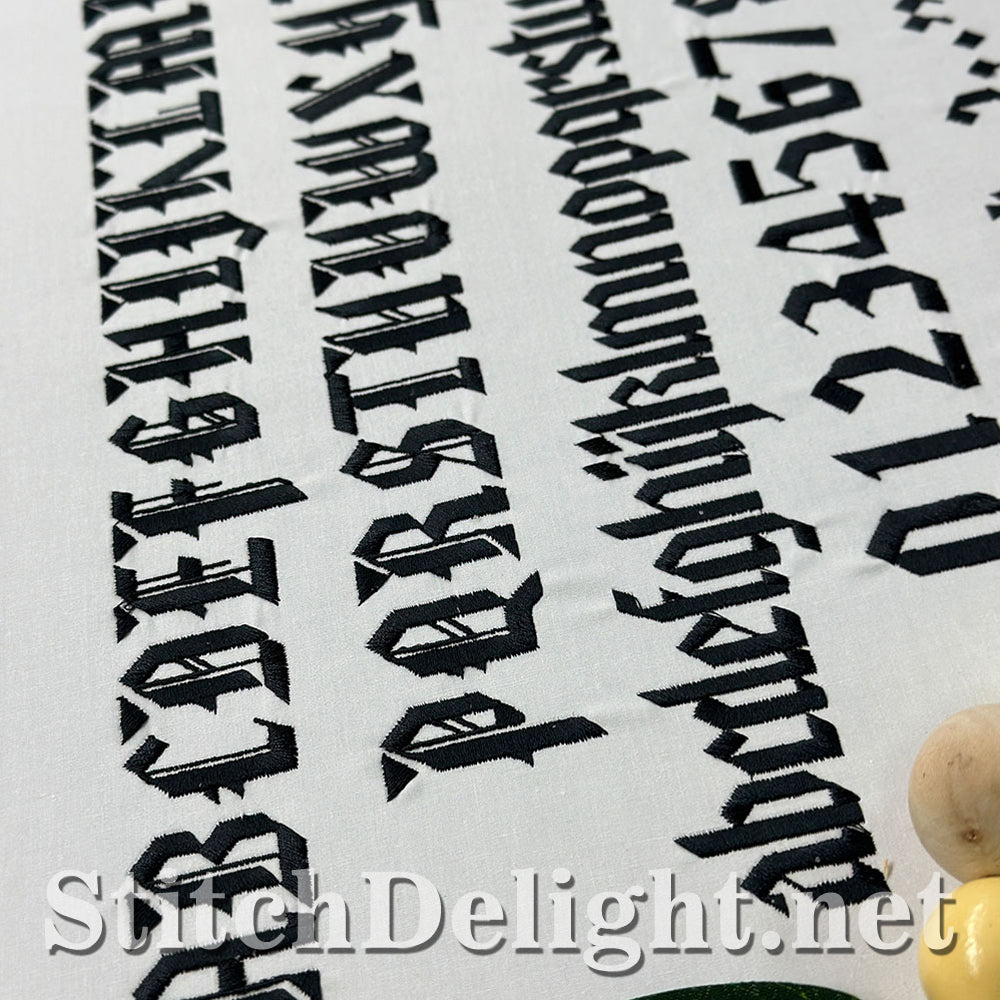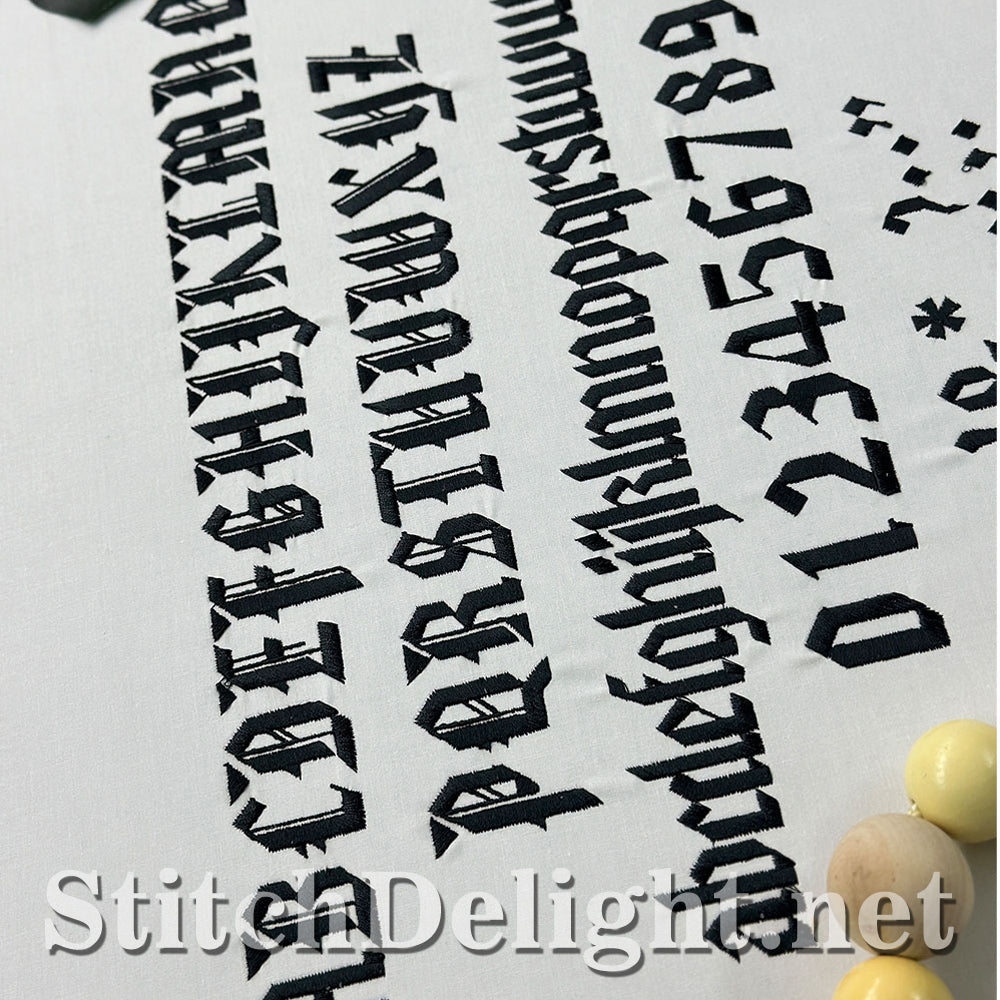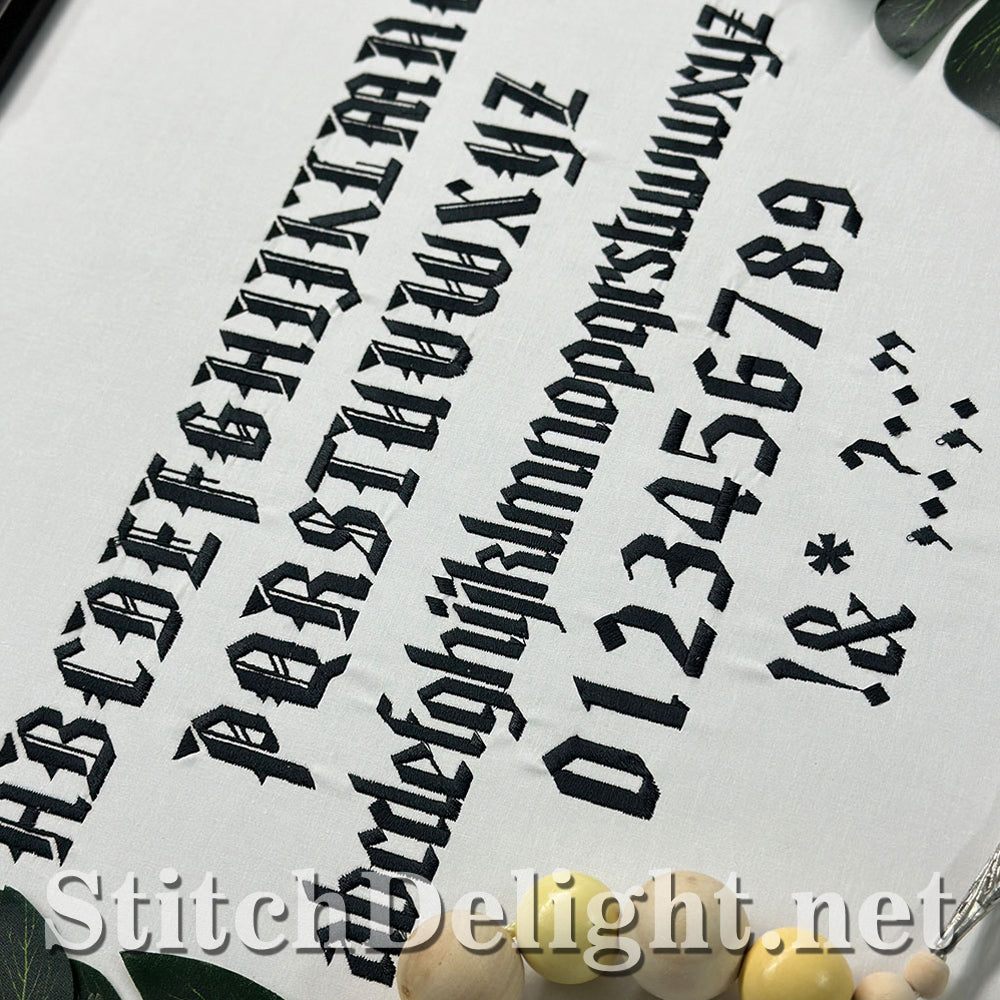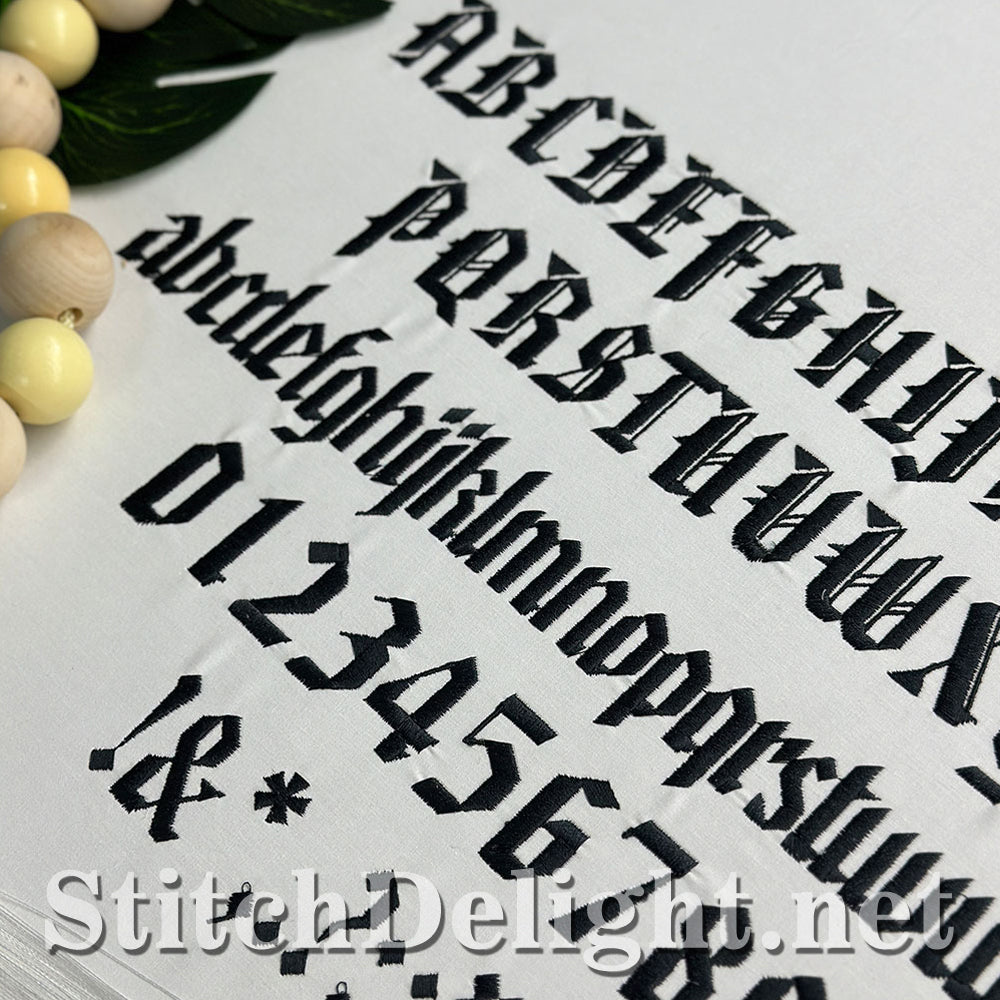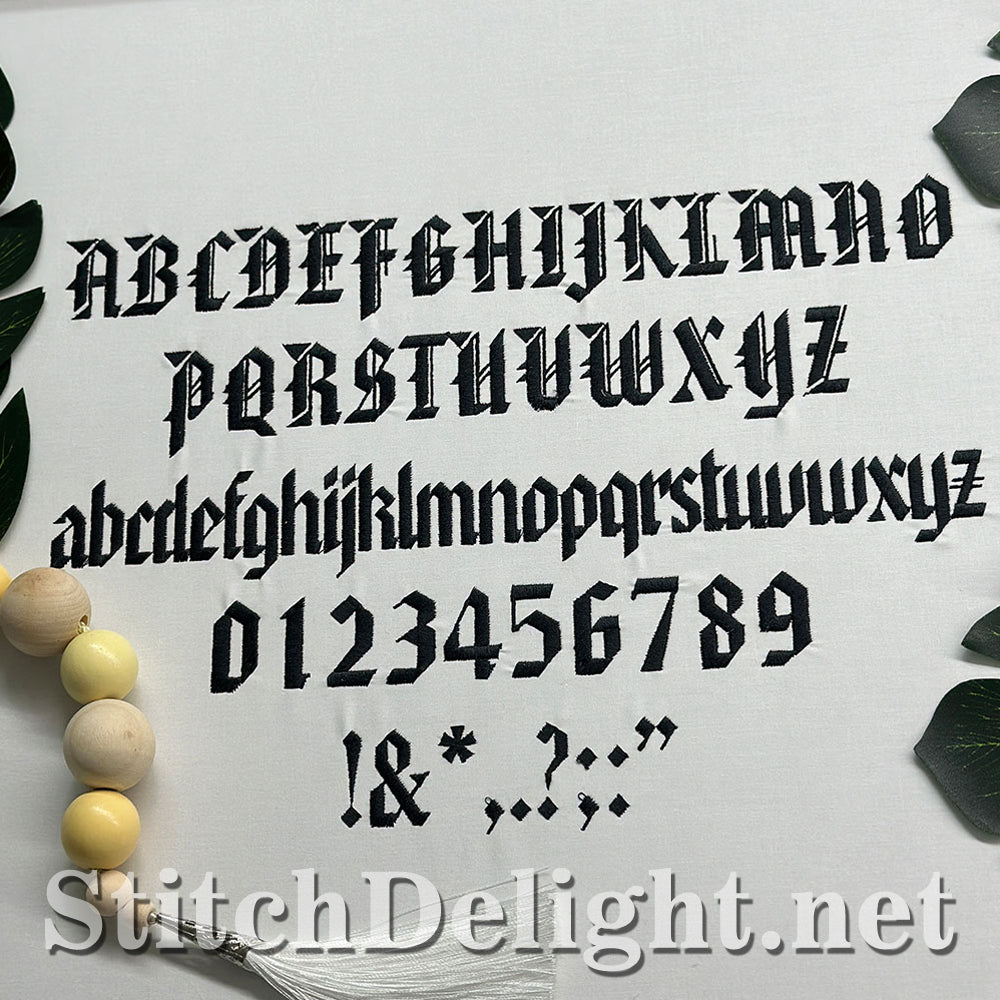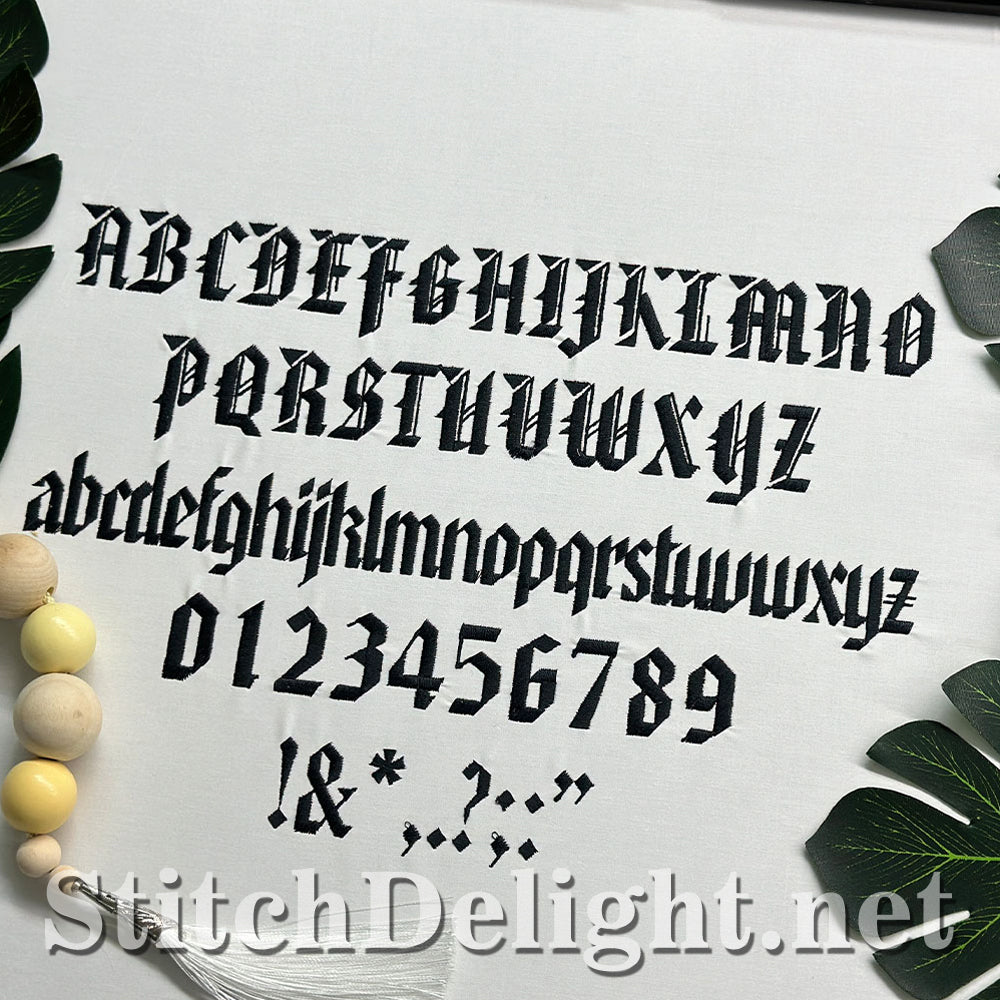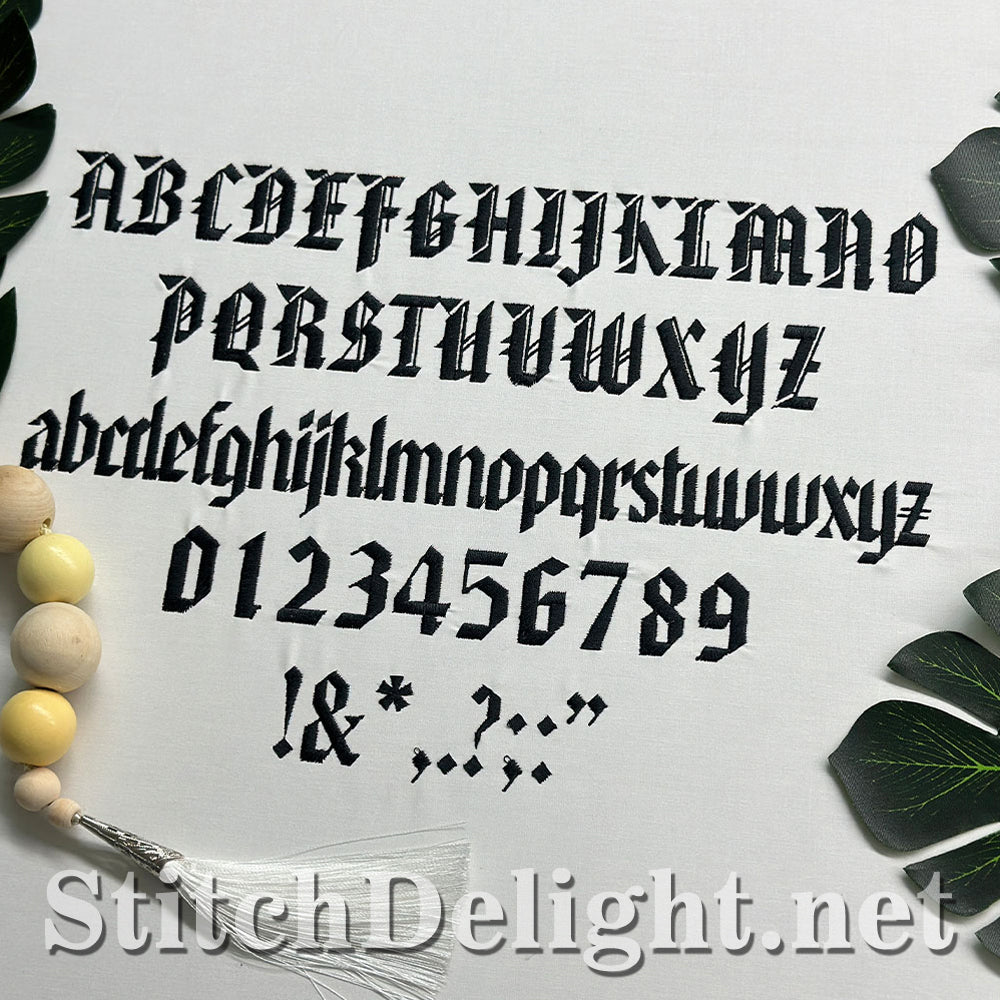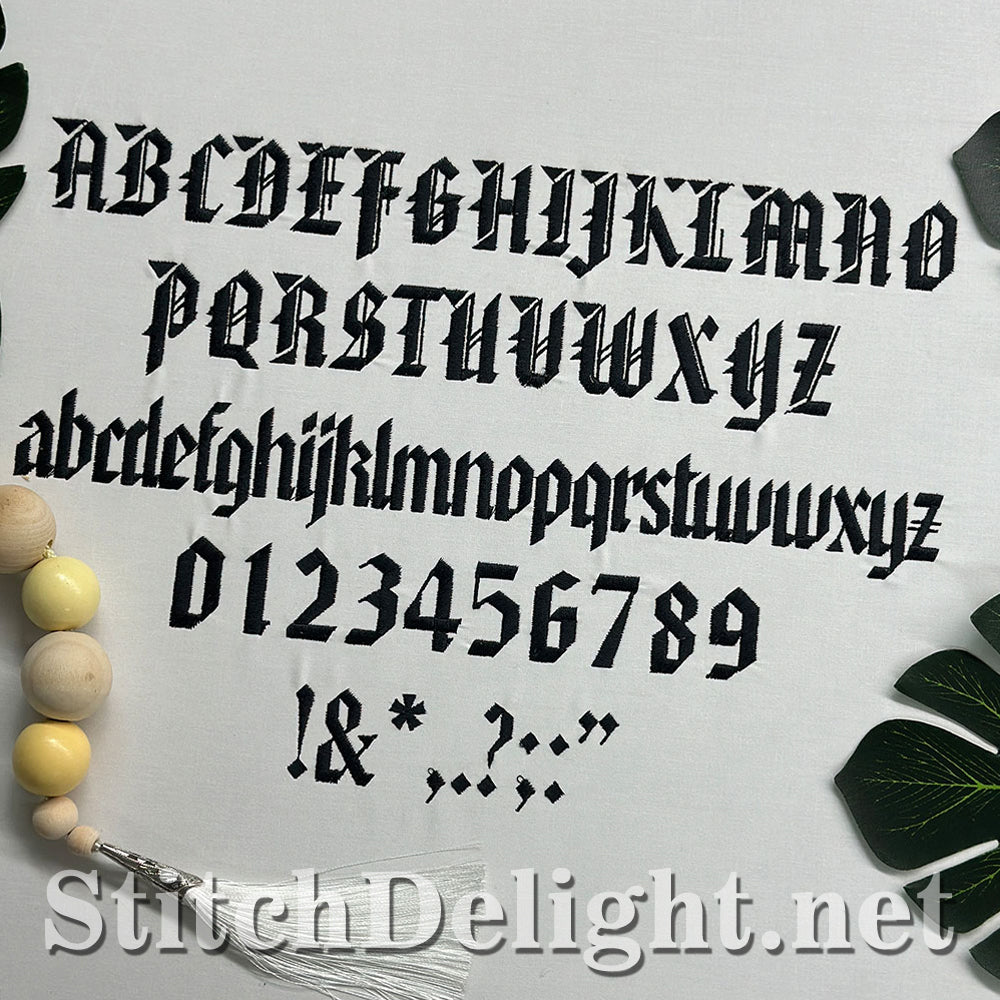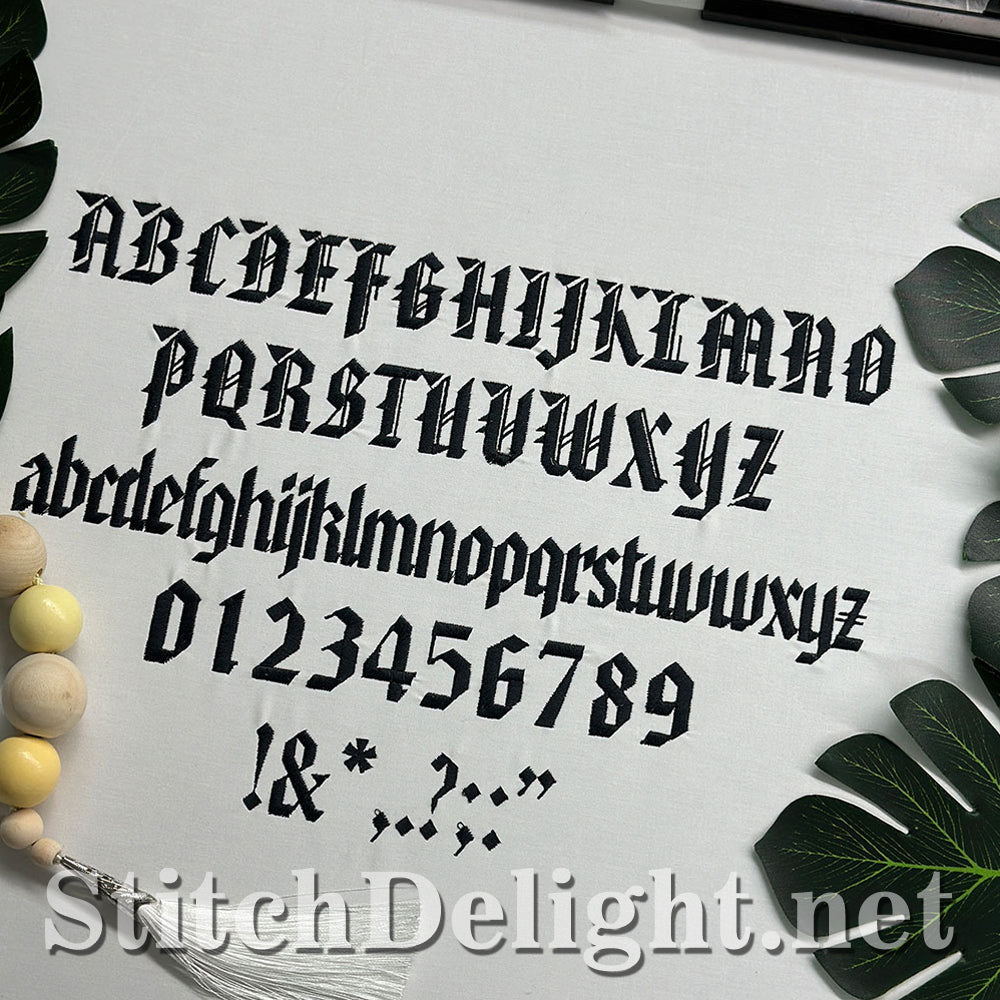
This stylish font has a letter height of 1.20inch / 30mm - Add flair and style to your projects. Suitable for all types of fabric with the appropriate stabilizer.